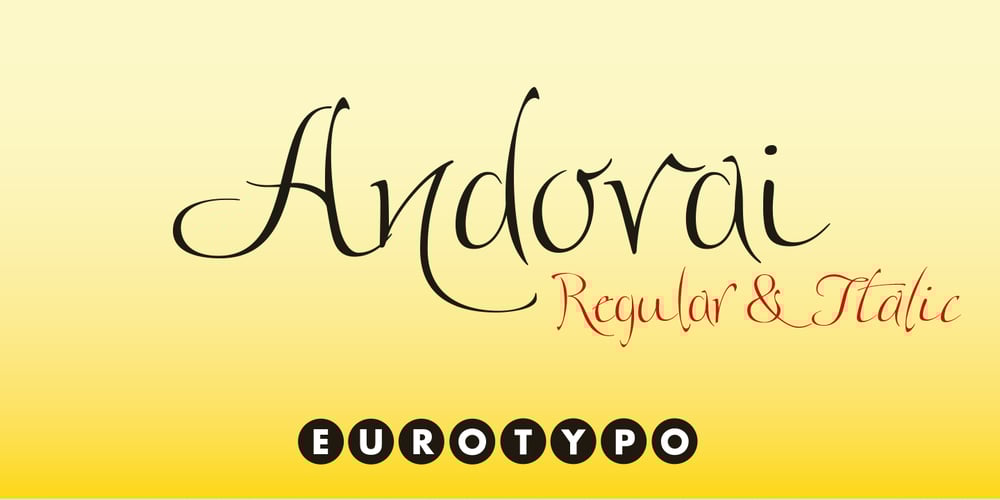
Andovai
Andovai font
Andovai Font Family was designed by Alberto Pedro Di Santo and published by Eurotypo. Andovai contains 2 styles and family package options. Andovai, a modern Roman cursive family, fast and slightly aggressive as today’s Rome, deriving its name in Roman dialect of the phrase “Ma ‘ndo vai…”, the meaning of which in Italian is “Dove vai?” (Where are you going?) … in a game to define a current and irreverent gestural typography.